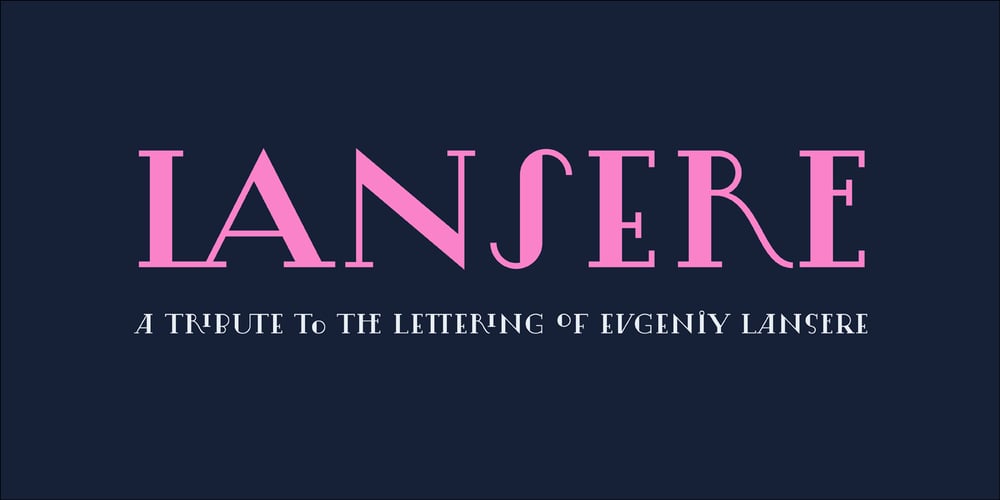
Lansere
Lansere font
Lansere Font Family was designed by Oleg Macujev and published by omtype. Lansere contains 1 styles and family package options. Lansere is an art-deco typeface inspired by lettering of Russian graphic artist, painter and sculptor Evgeniy Lansere (1875–1946). A strongly geometric lettering style of his late book covers and an elegance of early ones has been combined in a modern typeface . This all-caps font has two versions for each letter and more than 60 discretionary ligatures (both Latin and Cyrillic). The initial graphic idea by Denis Bashev.